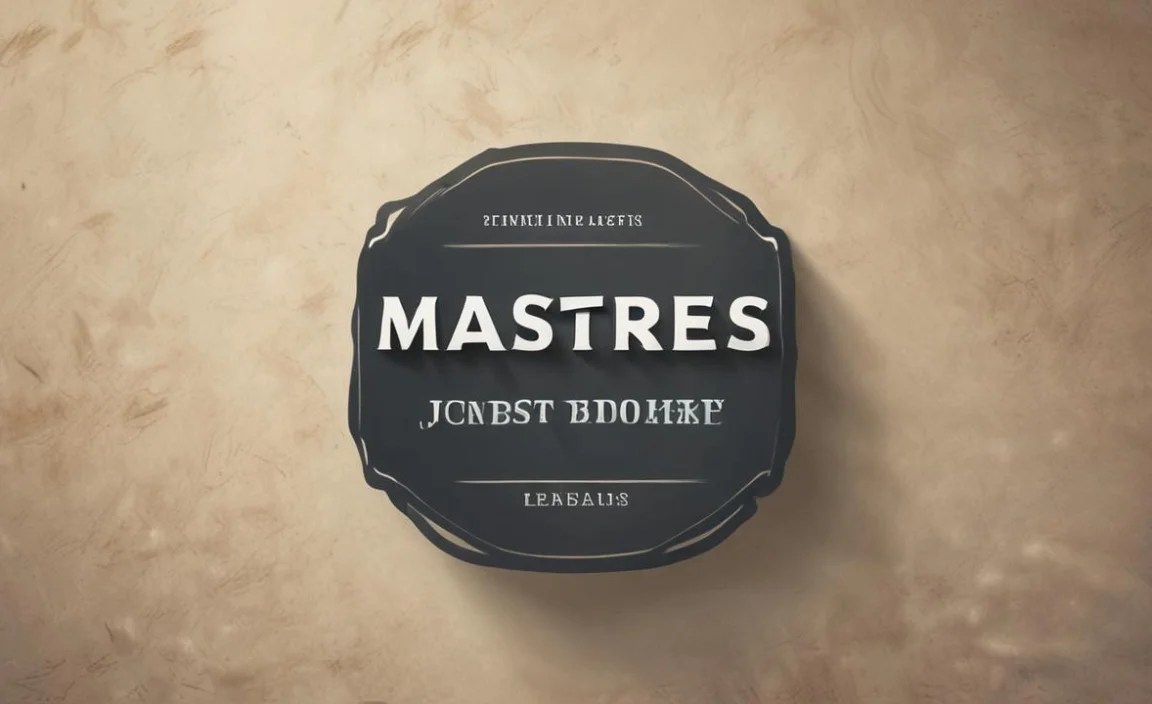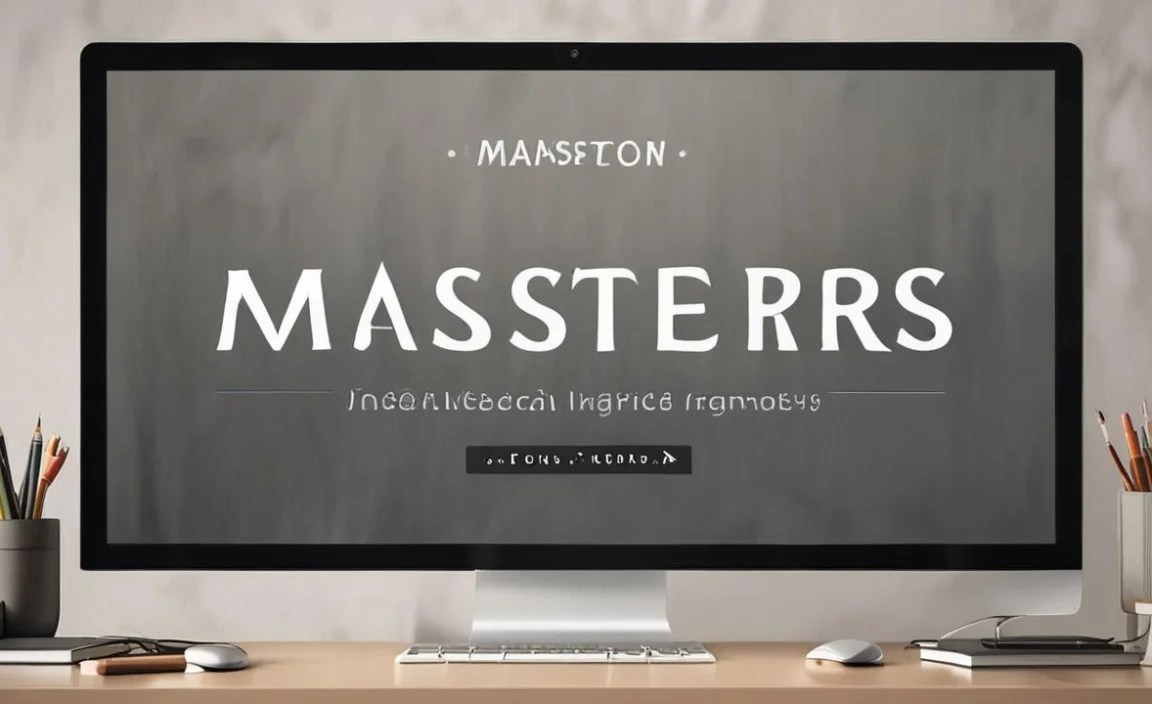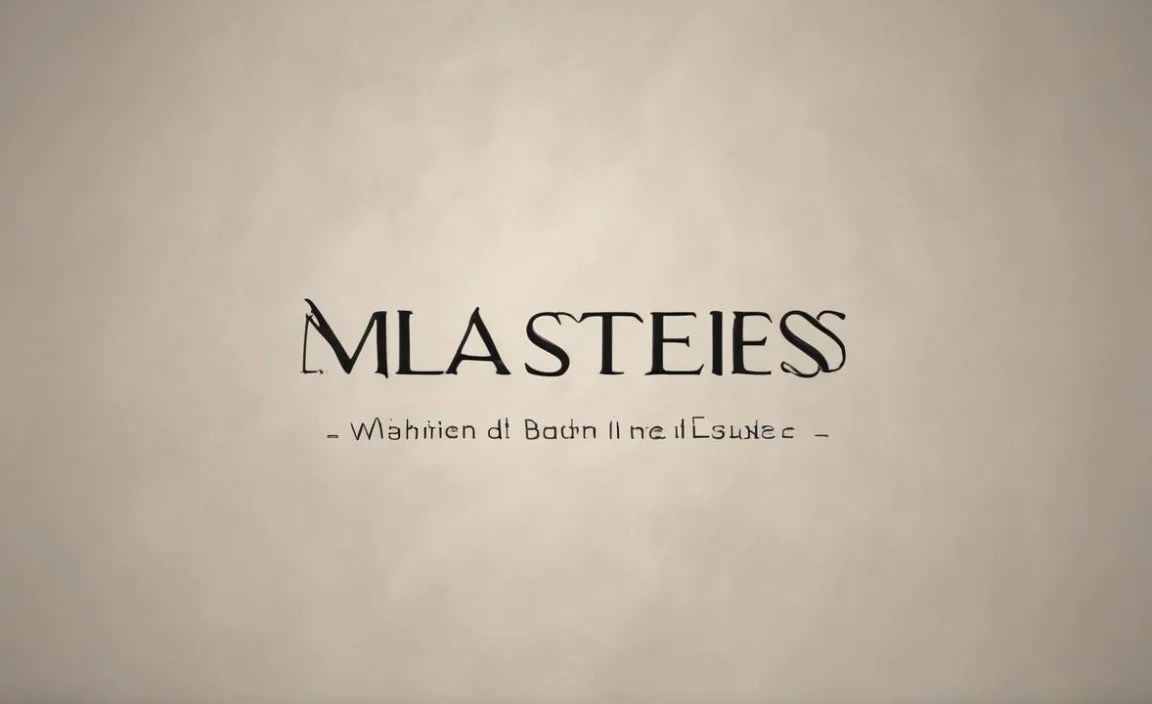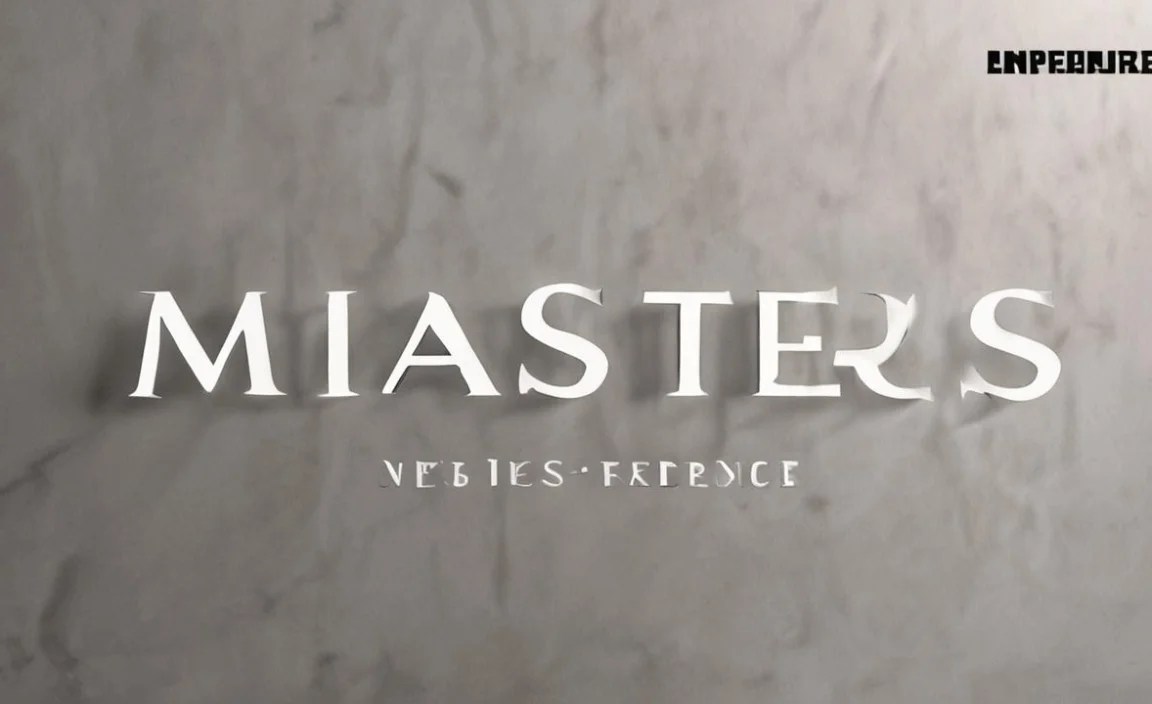
The “Masters Font” is closely tied to The Masters brand, renowned for its classic and evolving design identity.
Originally, the font drew inspiration from New Baskerville, a serif typeface known for its elegance and readability. Recently, The Masters logo has transitioned to use Gotham and Hoefler Text, reflecting a modern and sophisticated aesthetic.
Masters Font Information
| Name | Masters Font |
| Style | Serif / Sans-serif |
| Designer | Various (originally influenced by New Baskerville) |
| Type | Geometric Sans-serif/ Serif |
Masters Font Family Includes
The Masters Font Family represents a blend of classic and contemporary design. It includes a variety of styles, starting with the traditional serif look of New Baskerville and evolving into the modern aesthetics of Gotham and Hoefler Text. The current logo features these modern fonts, offering a refined and clean appearance suitable for various applications.
Where Masters Font Is In Use
The Masters Font is prominently used in logo design to establish a strong and recognizable brand identity, in advertising to enhance promotional materials with a sophisticated touch, and in website headers to offer a modern and clear look. It also features in,
- Logo design,
- Advertising,
- Retail,
- Brochures,
- Flyers,
- Event program,
- Web Texts,
- Promotional materials.
Masters Font Alternative
The Masters Font reflects a blend of traditional and modern design principles, embodying both elegance and contemporary sophistication. For detailed insights, you can explore official resources related to The Masters brand or design platforms showcasing the font’s evolution.
1. What Colors Complement The Masters Font?
Deep blues, classic grays, rich golds, and elegant blacks enhance the Masters Font’s refined appearance.
2. How To Use The Masters Font On A Dark Background?
Use light or white text colors, such as cream or pale gray, to ensure readability against a dark background.
3. What Fonts Are Similar To The Masters Font?
Fonts like Georgia, Baskerville, and Gotham share a similar aesthetic to the Masters Font.
4. Are There Any Issues With The Masters Font Design?
The Masters Font is generally well-received, but challenges may include balancing traditional elegance with modern readability.
5. What Are The Bestselling Fonts Similar To The Masters Font On Etsy?
Fonts like Bebas Neue, Montserrat, and Raleway offer similar contemporary aesthetics.